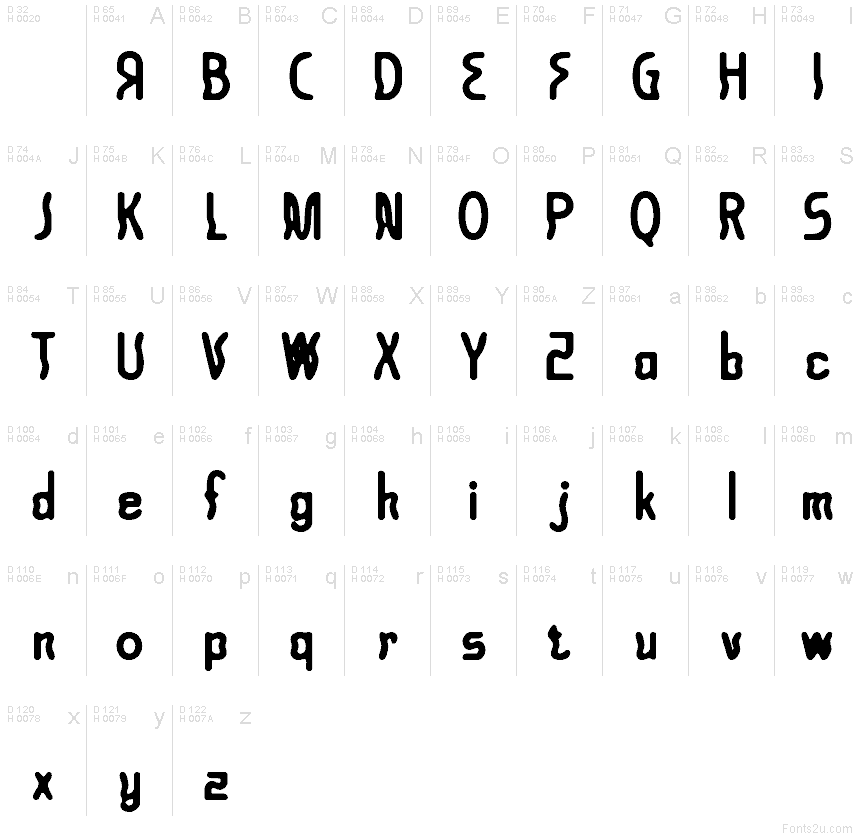
CS Renate Drawn font by Craft Supply Co. stands out with its swollen, inky strokes and soft, puddled edges that feel hand-poured rather than plotted. Part of the CS Renate family, it rides a steady rhythm—loose and wavy, yet surprisingly readable—thanks to rounded counters and consistent weight. It’s a free bold distorted display font that brings a tactile, melted charm without slipping into chaos.
Using CS Renate Drawn, headlines gain a gummy, high-impact voice that shines on posters, album art, streetwear branding, festival graphics, stickers, and zines. The forms cluster snugly, so you can size it big for punchy titles and keep lines tight. For balance, pair this free font with a simple geometric sans for body copy.